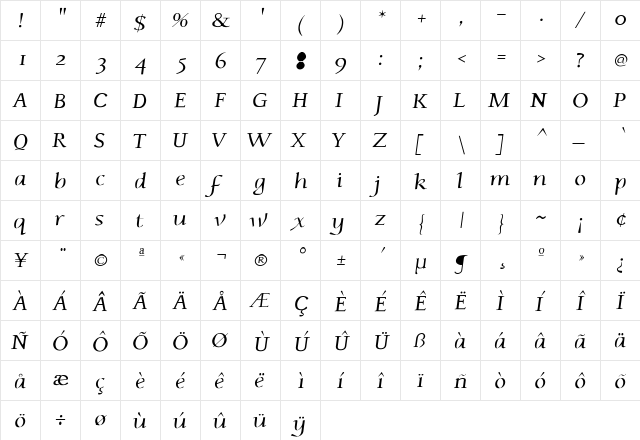
PhaedrusItalic Regular Font Preview
PhaedrusItalic Regular
Design Context for PhaedrusItalic Typeface
PhaedrusItalic is a composed and adaptable typeface that performs quietly and consistently across a wide range of design contexts. The dynamic lean of this cut emphasises speed and emphasis in any layout.
Pro Tip: Try PhaedrusItalic for annotation and caption copy alongside an upright companion — the contrast in angle creates a dynamic but ordered typographic system.